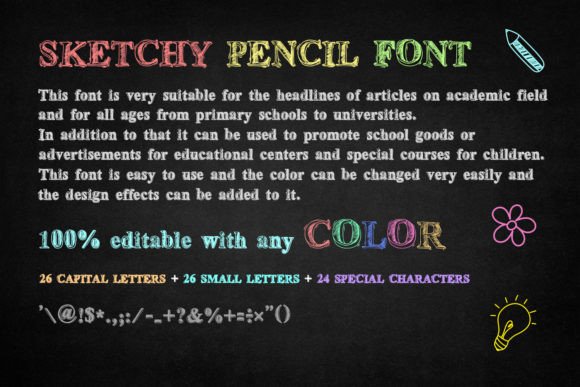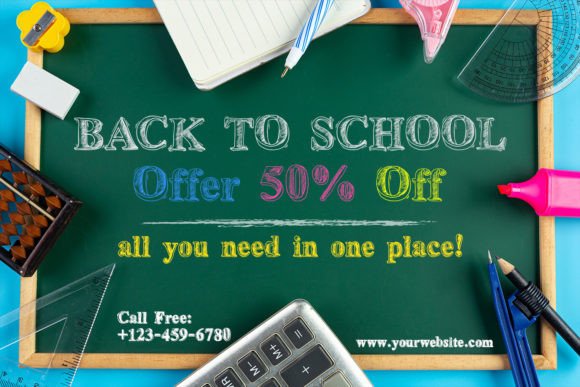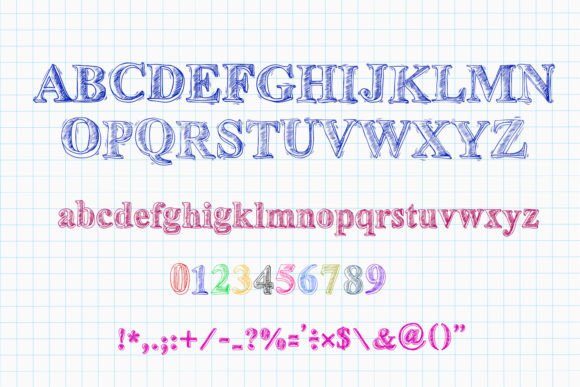
Introduction to Heavy Sketch Font
Have you ever been in the midst of a creative project, staring at a blank canvas, waiting for inspiration to strike? It’s moments like these that remind us why we love being designers. For some, it’s the thrill of bringing a concept to life, while for others, it’s the satisfaction of seeing a design evolve from scratch. Whatever the motivation, one thing is certain – a great design resource can make all the difference.
Enter the Heavy Sketch Font, a high-quality, handwritten font that’s perfect for those who love to create with a personal touch. With its transparent background and versatile style, this font is ideal for a wide range of creative projects, from school-themed designs to artistic expressions. And the best part? It’s available for a free download, making it an invaluable asset for designers and non-designers alike.
Key Features of Heavy Sketch Font
- High-quality design resource ideal for creative projects, offering a unique and stylish aesthetic.
- Heavy Sketch Font features a transparent background, allowing for seamless integration into your design.
- Available in a single size, making it easy to use in a variety of creative projects, from logos to graphics.
- Unique characteristics include bold lines, intricate details, and a distressed texture, adding a touch of nostalgia to your designs.
Honest Review: Heavy Sketch Font
As a designer, I’m always on the lookout for high-quality design resources that can elevate my creative projects. Recently, I had the chance to try out the Heavy Sketch Font, and here’s my honest review.
- ✨ High-quality strokes and lines that mimic the feel of hand-drawn sketches.
- ✨ Versatile font that can be used for a variety of design projects, from logos to graphics.
- ✨ Transparent background option, making it easy to place over any image or design element.
One of the things that impressed me about the Heavy Sketch Font is its high level of detail. The strokes and lines are smooth and natural, giving it a very organic feel. I also appreciated the transparent background option, which made it easy to integrate the font into my design projects.
- ⚠️ Limited character set, which may not be suitable for longer blocks of text.
- ⚠️ May not be the best choice for designs that require a lot of fine detail.
Overall, I’m impressed with the Heavy Sketch Font. While it may have some limitations, it’s a great addition to any designer’s toolkit, especially for creative projects that require a unique and organic feel.
Heavy Sketch Font: A Practical Application Guide
Common Use Cases for Heavy Sketch Font
Heavy Sketch Font is a popular choice for creative projects, including graphic design, branding, and marketing materials. It’s also commonly used in digital art, illustrations, and typography-based designs. With its high-quality design and transparent background feature, Heavy Sketch Font is a valuable resource for designers and creatives.
Tips for Getting the Most Out of Heavy Sketch Font
To get the most out of Heavy Sketch Font, experiment with different font sizes, colors, and styles to achieve a unique look. Use the transparent background feature to create seamless designs and combine the font with other design elements for a professional finish. You can also pair Heavy Sketch Font with other design resources to create a cohesive and high-quality design.